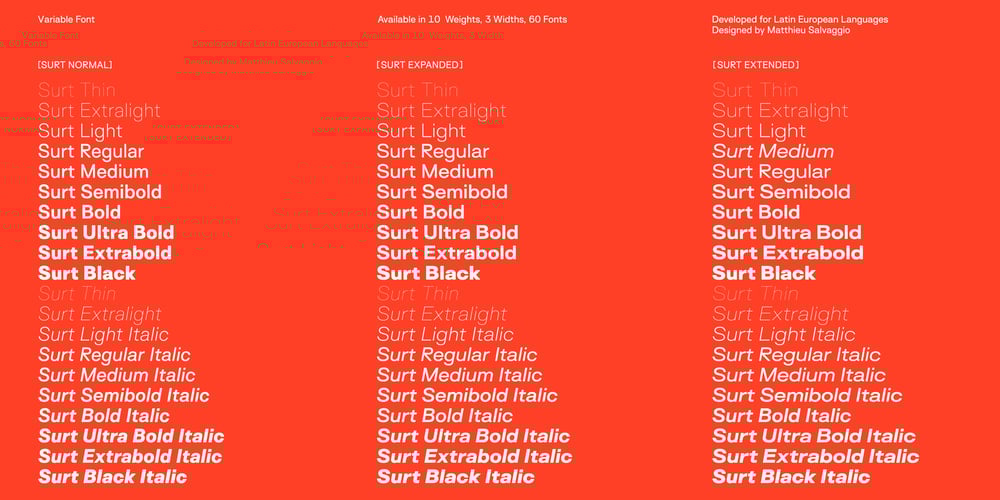
Surt VF Font Family was designed by Matthieu Salvaggio and published by Blaze Type. Surt VF contains 1 styles and family package options. The Surt typeface family, inspired by Norse mythology and Scandinavian Architecture, draws a bridge between a geometric sans and a human process in the whole shape design. Surt’s Norse-like character set will allow text layouts to have this unusual corkiness which make it so particular and so comfortable to read. The rounded Norse inspired glyphs’ width are shaped in such a way that they operate a discrete rupture in the text rhythmic. Surt also draws inspiration in geometrical shapes found in geometric fonts.While the history of geometric fonts can be traced back to the early days of the modernist movement in the early twentieth century. Surt’s inspiration is more contemporary and in link to strong brutalist architecture than historical geometric or even neo grotesque like fonts.